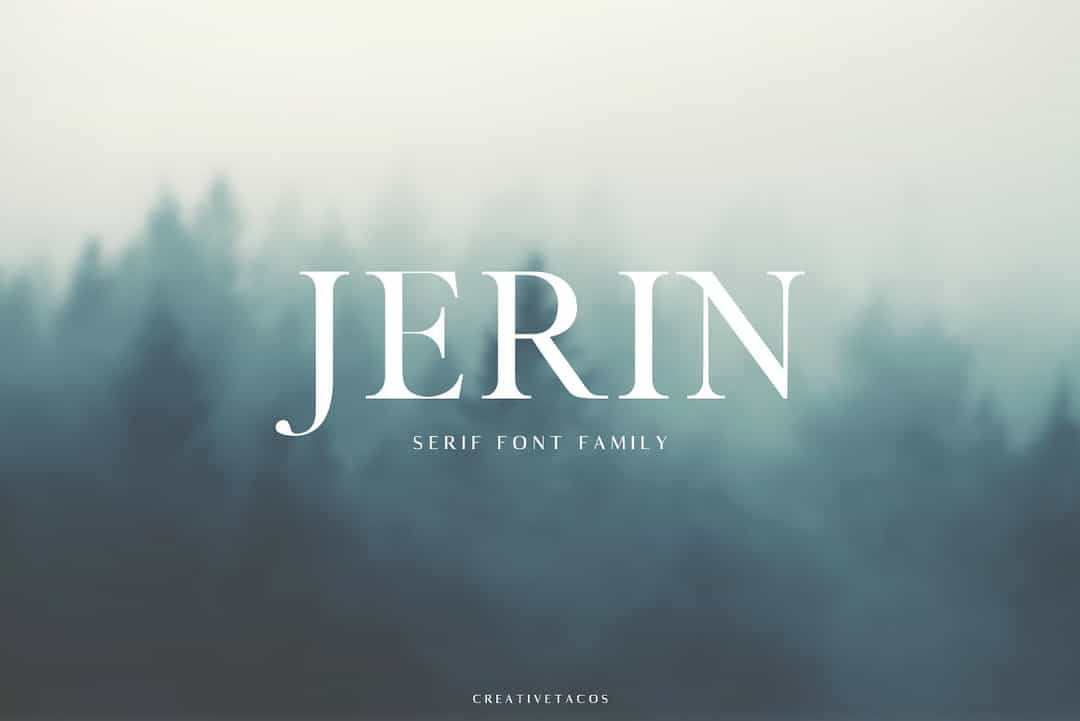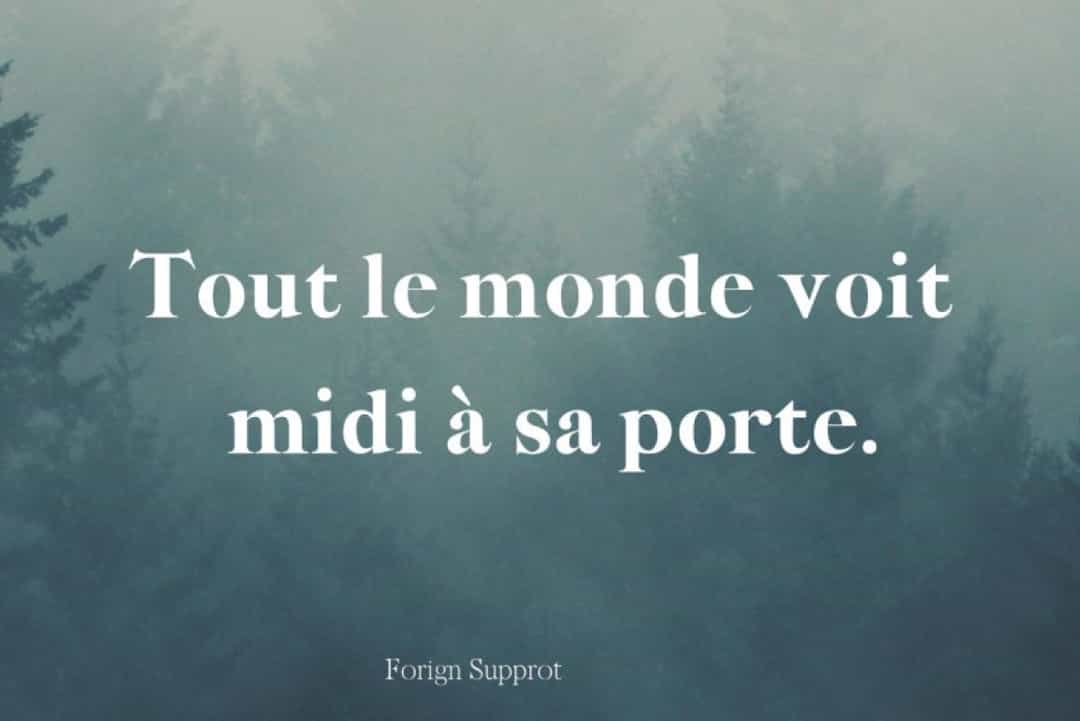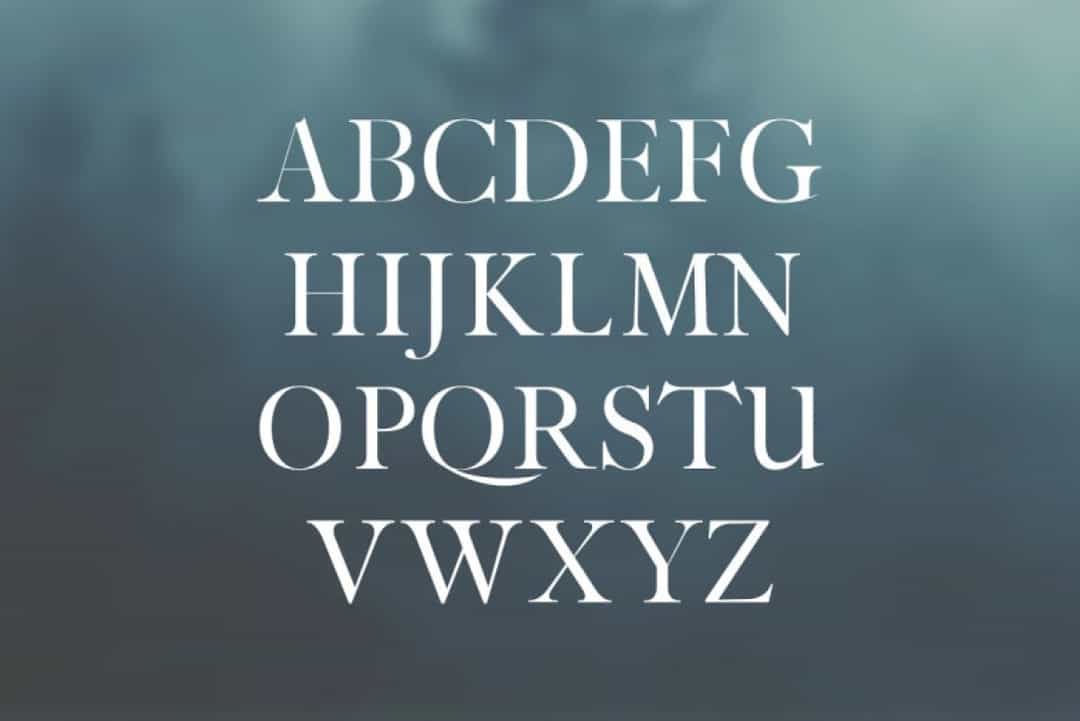
Discover Jerin Font, part of the Serif collection—a versatile and unique font perfect for adding a personal touch to your projects. Download it for free and enjoy crafting designs with style, from invitations to social media posts. This font is available exclusively for personal use, giving you the freedom to create without limits. Unlock your creativity with Jerin Font today!
Jerinis is an elegant and sophisticated serif font with stunning lines that makes an impressionful statement in any situation. Packed with all the non-English characters found commonly used within its design, it pairs beautifully with sans serif display styles such as sans serif display, script and handwriting styles for stunning results.